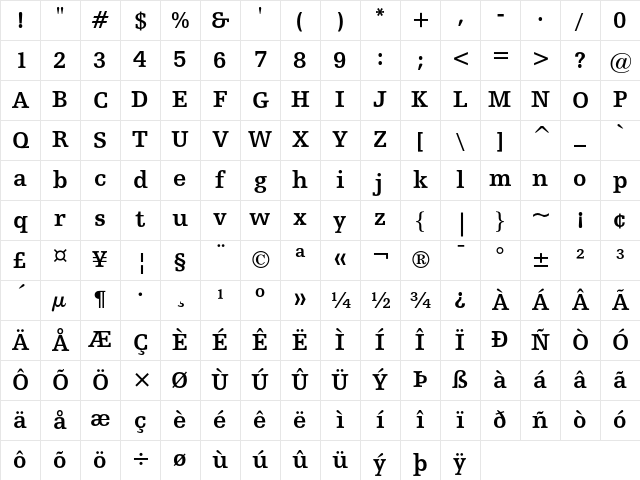
Complete Humanist Slabserif 712 Bold glyph index. Displaying only characters natively supported by Humanist Slabserif 712 Bold font.
Humanist Slabserif 712 features prominent, blocky serifs that give it a confident, grounded presence - equally at home in editorial settings and bold branding work. Its bold stroke weight gives it real presence on the page.
Pro Tip: Use Humanist Slabserif 712 for headlines and subheadings where its slab serifs can make an impression. It also holds up well in mid-size body copy thanks to its sturdy construction.